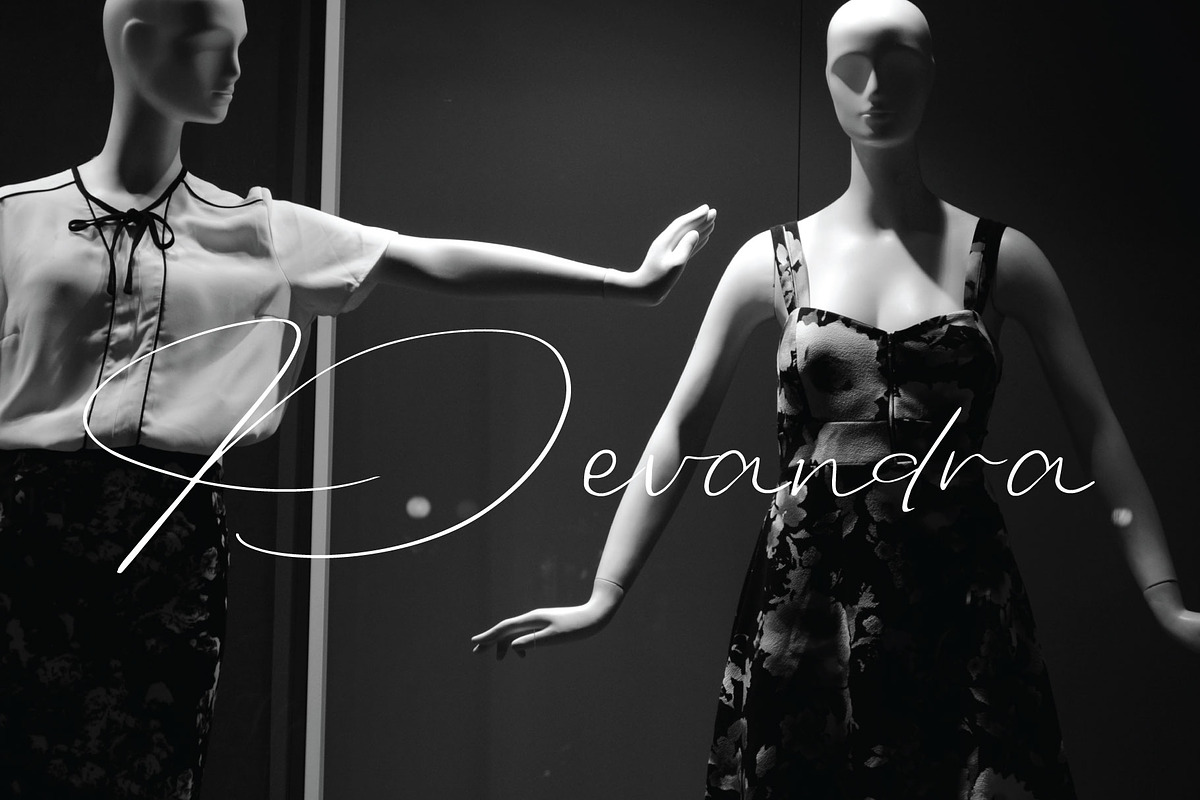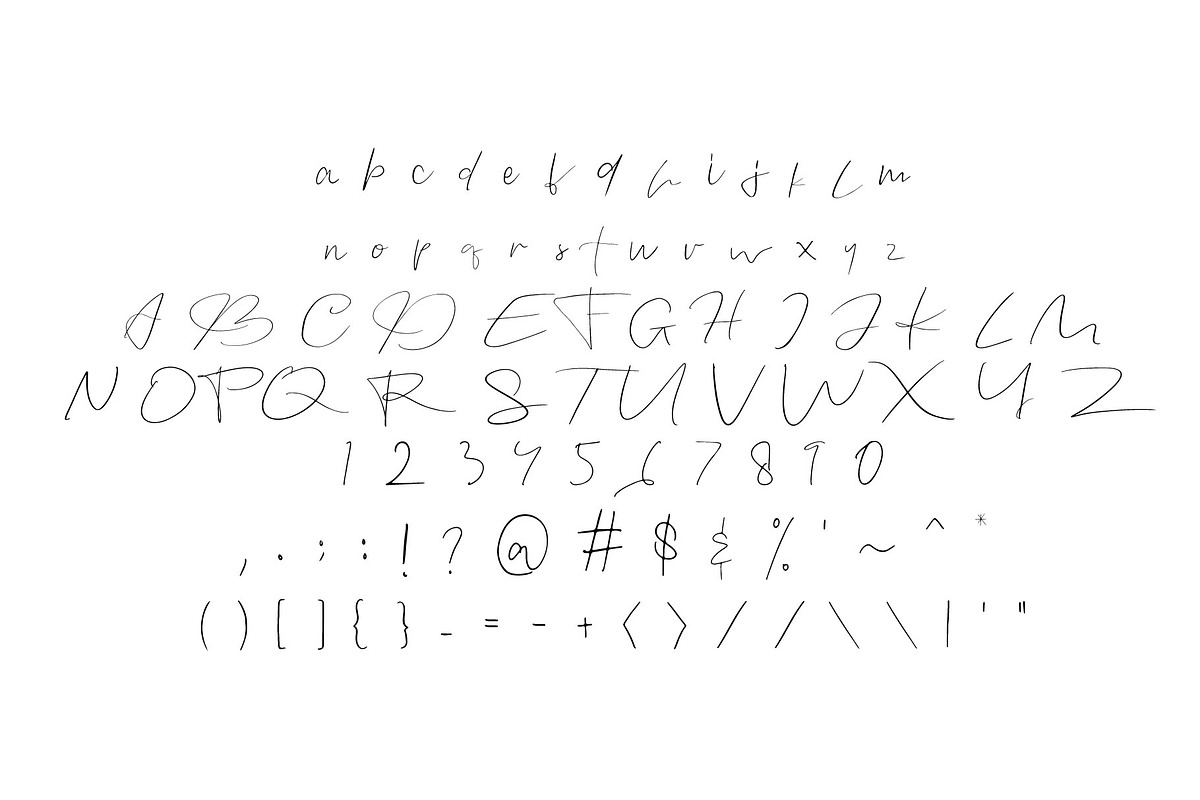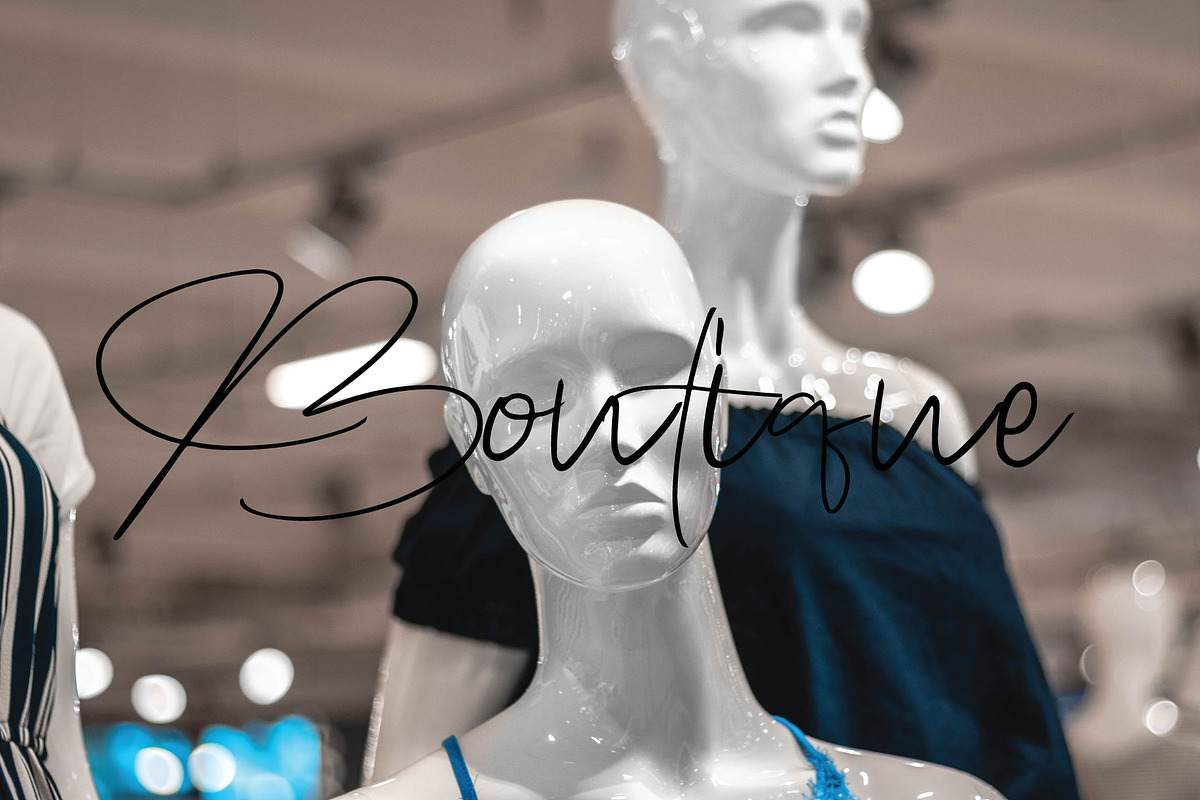
devandra font
Devandra Font by Goodigital13 is a font selected for branding, posters, packaging, typography.
Why devandra font is worth a look
devandra font by Mariyana fits naturally into Branding, posters, packaging, typography.